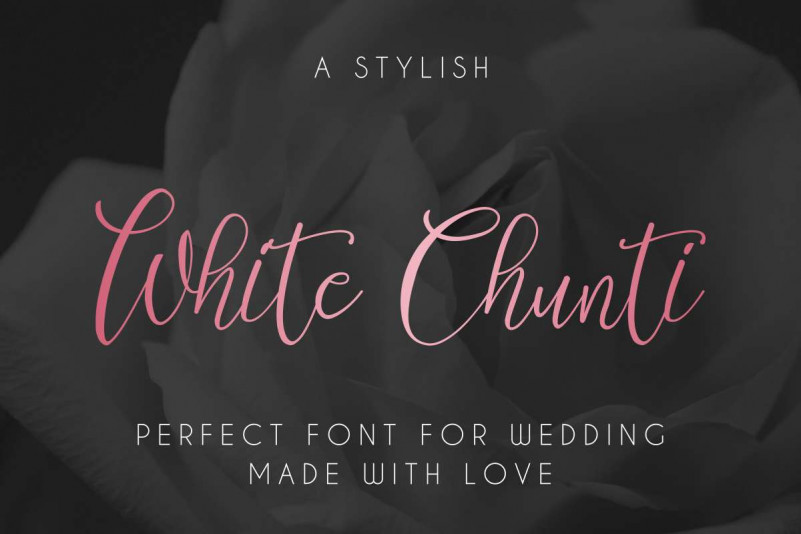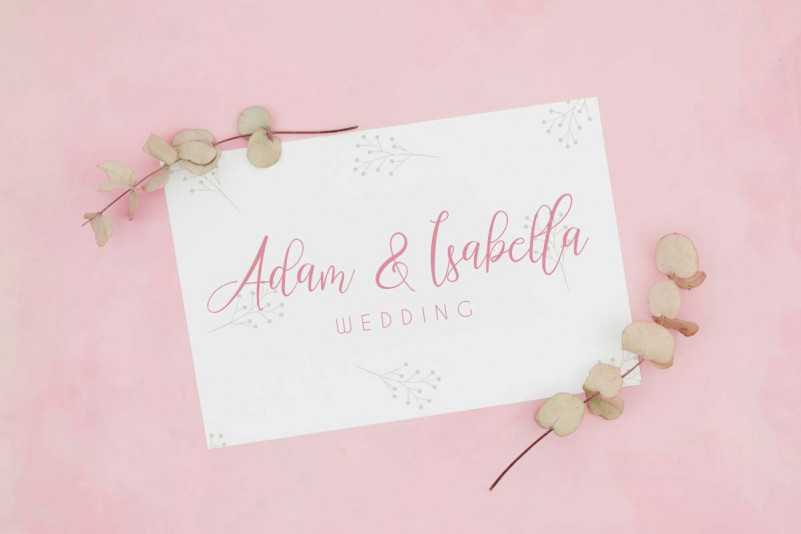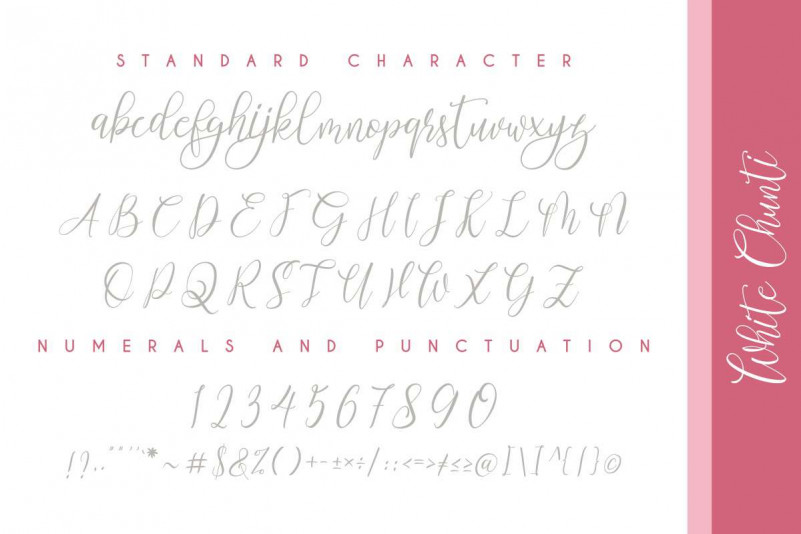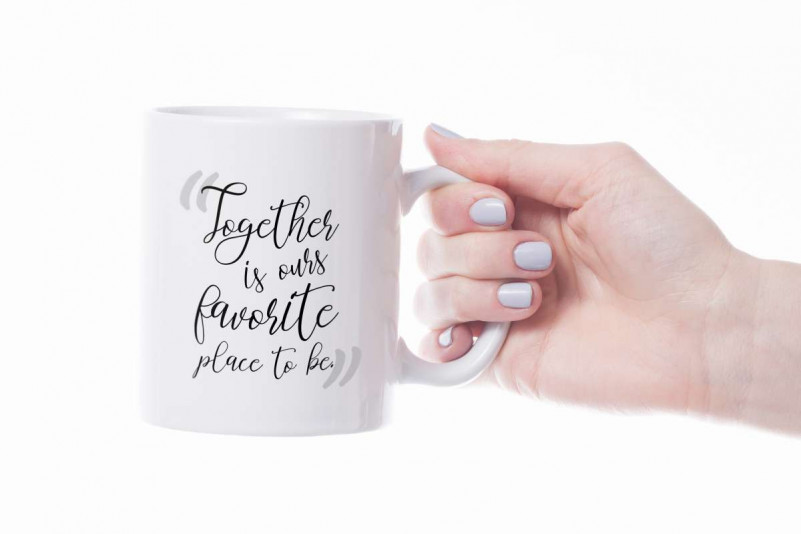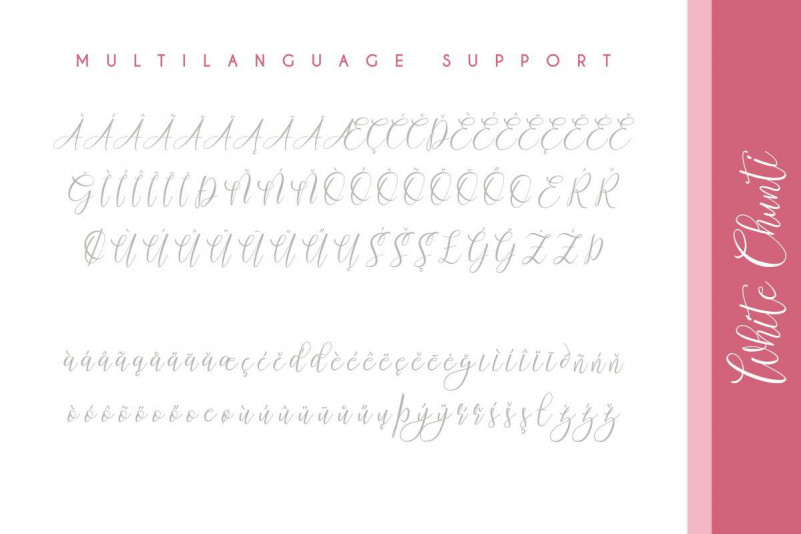
WhiteChunti Script Font
Ho ho ho! Introducing our newest font : WhiteChunti Script Font! This is a new script calligraphy style font. It has a beautiful and stylish glyphs. Will be perfect for any designs projects.